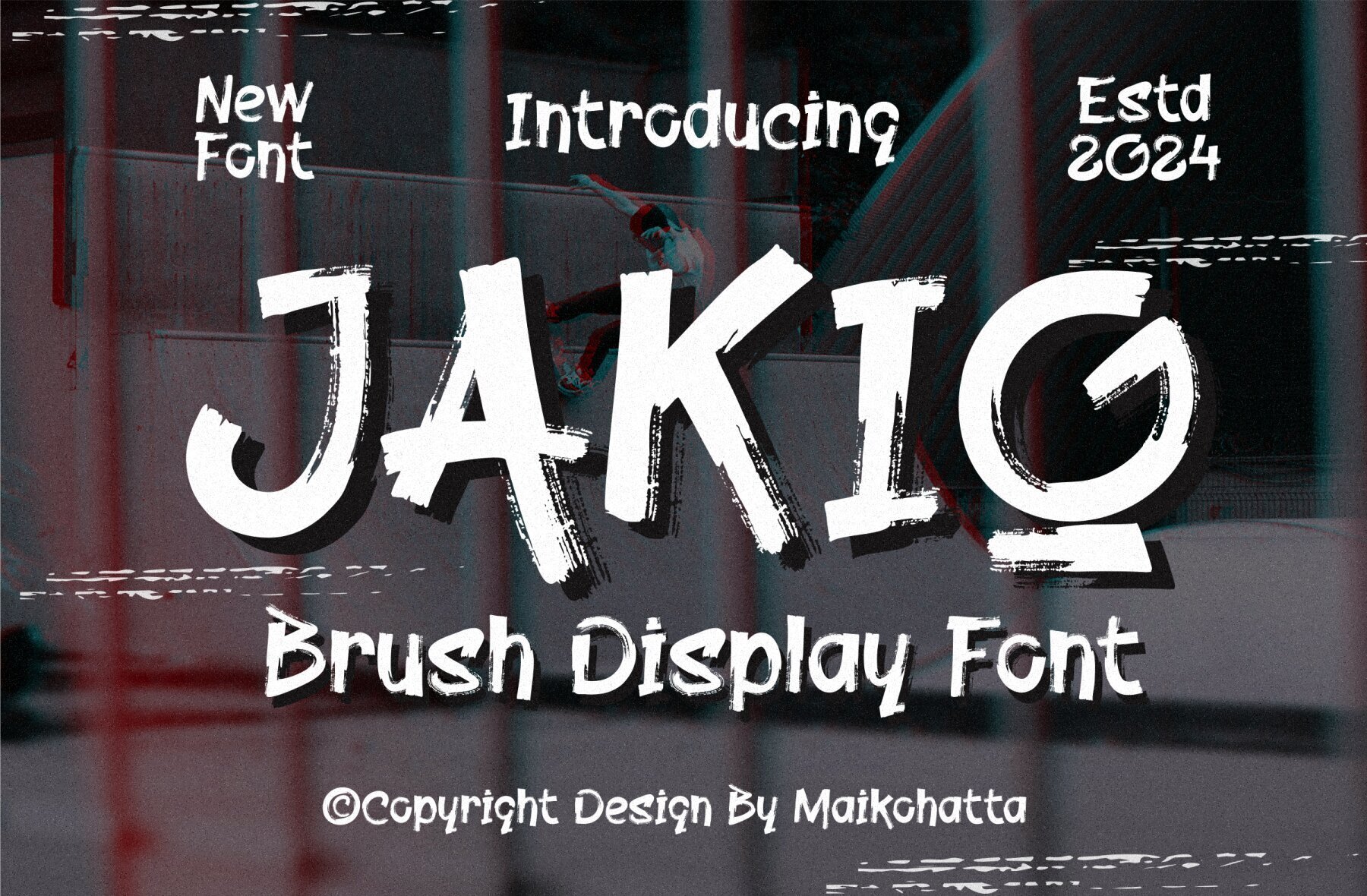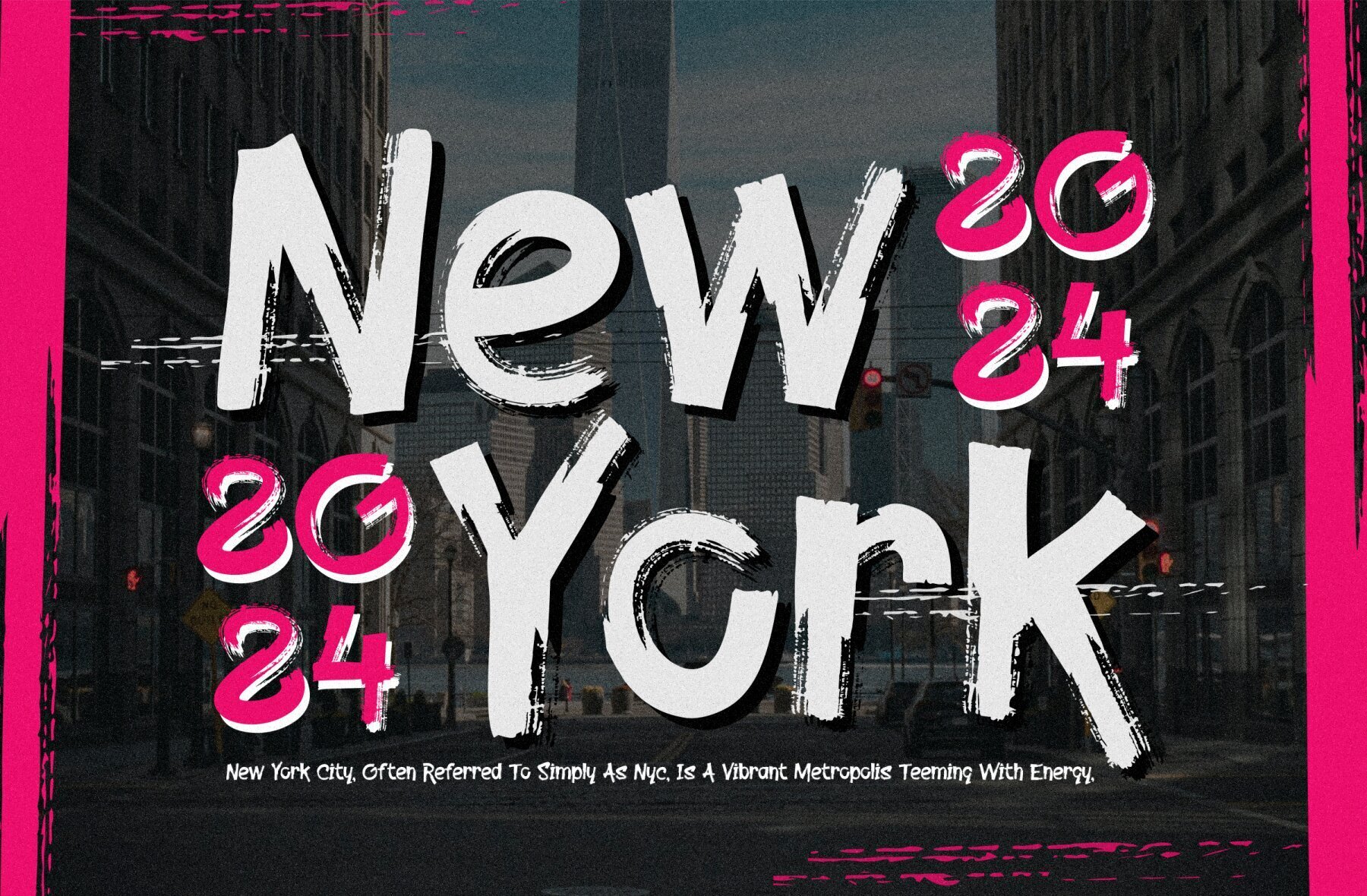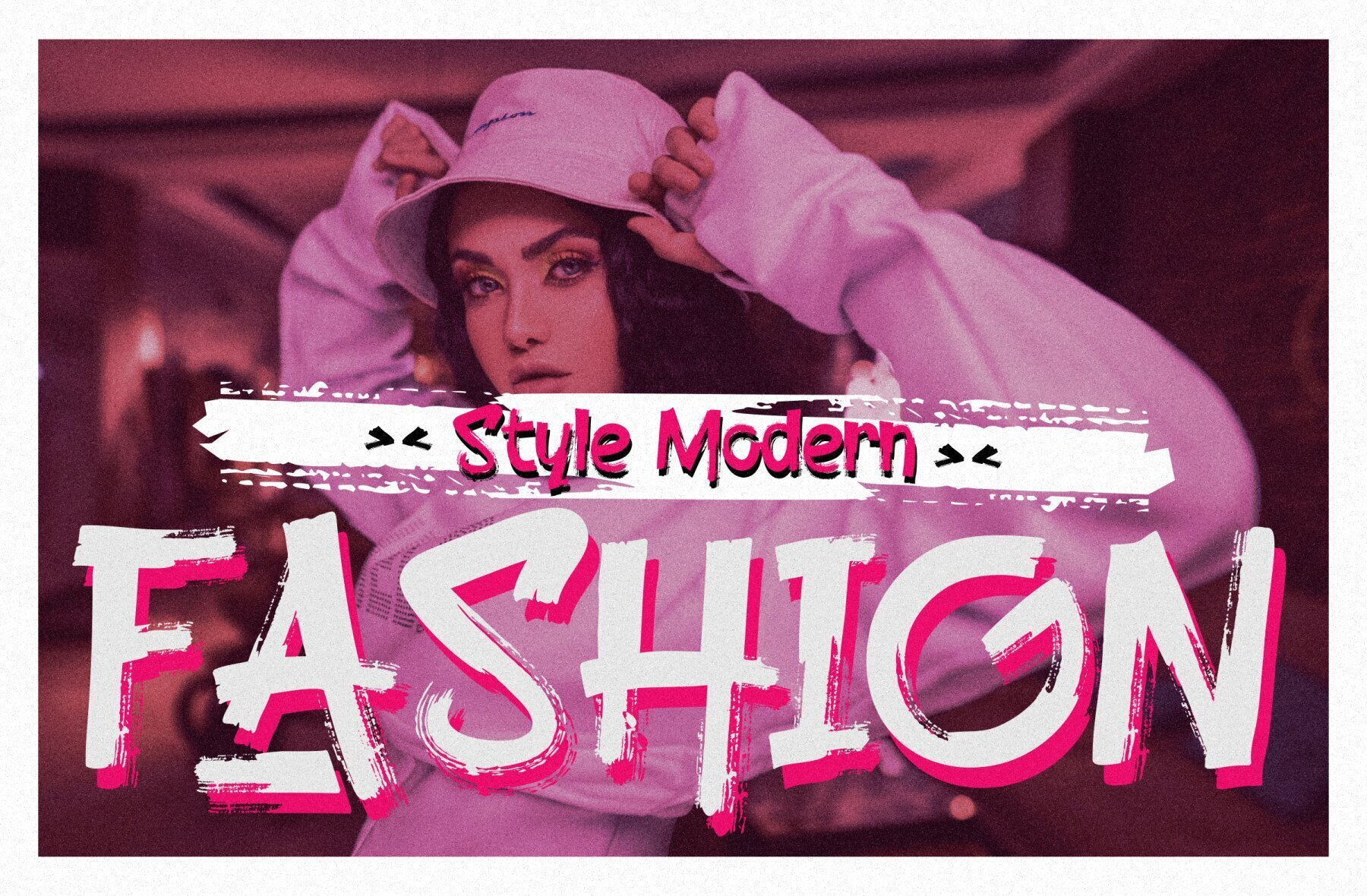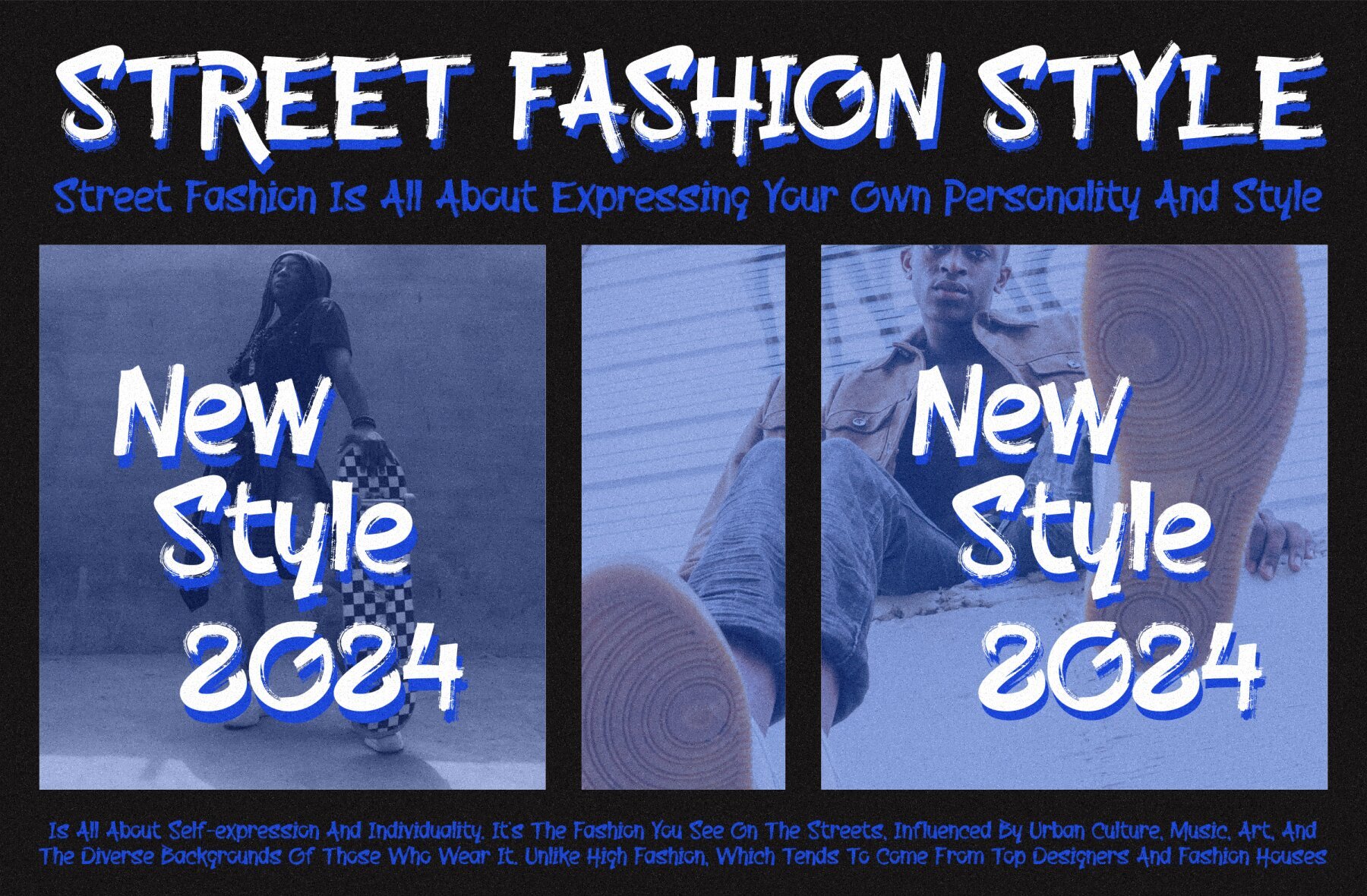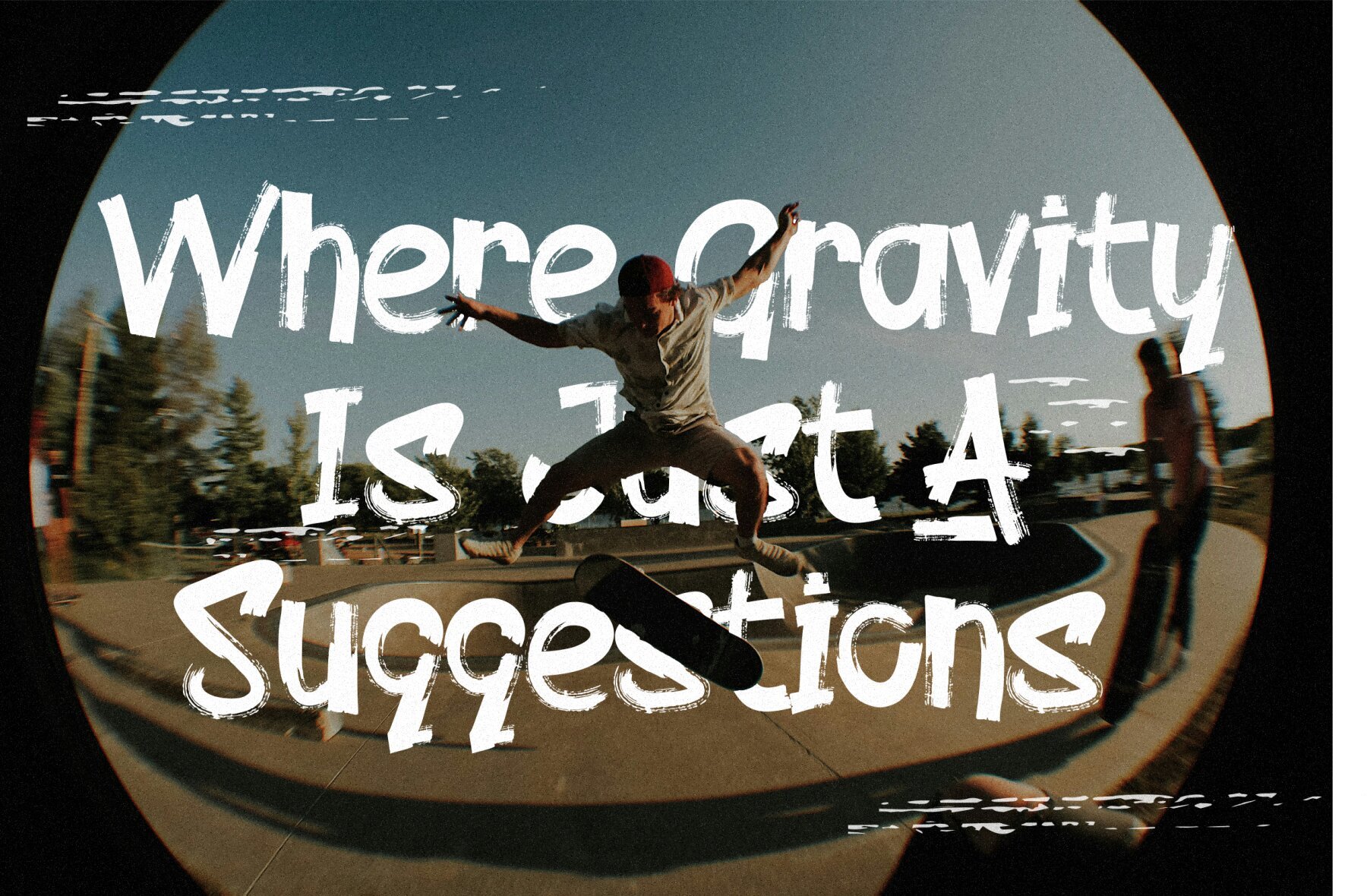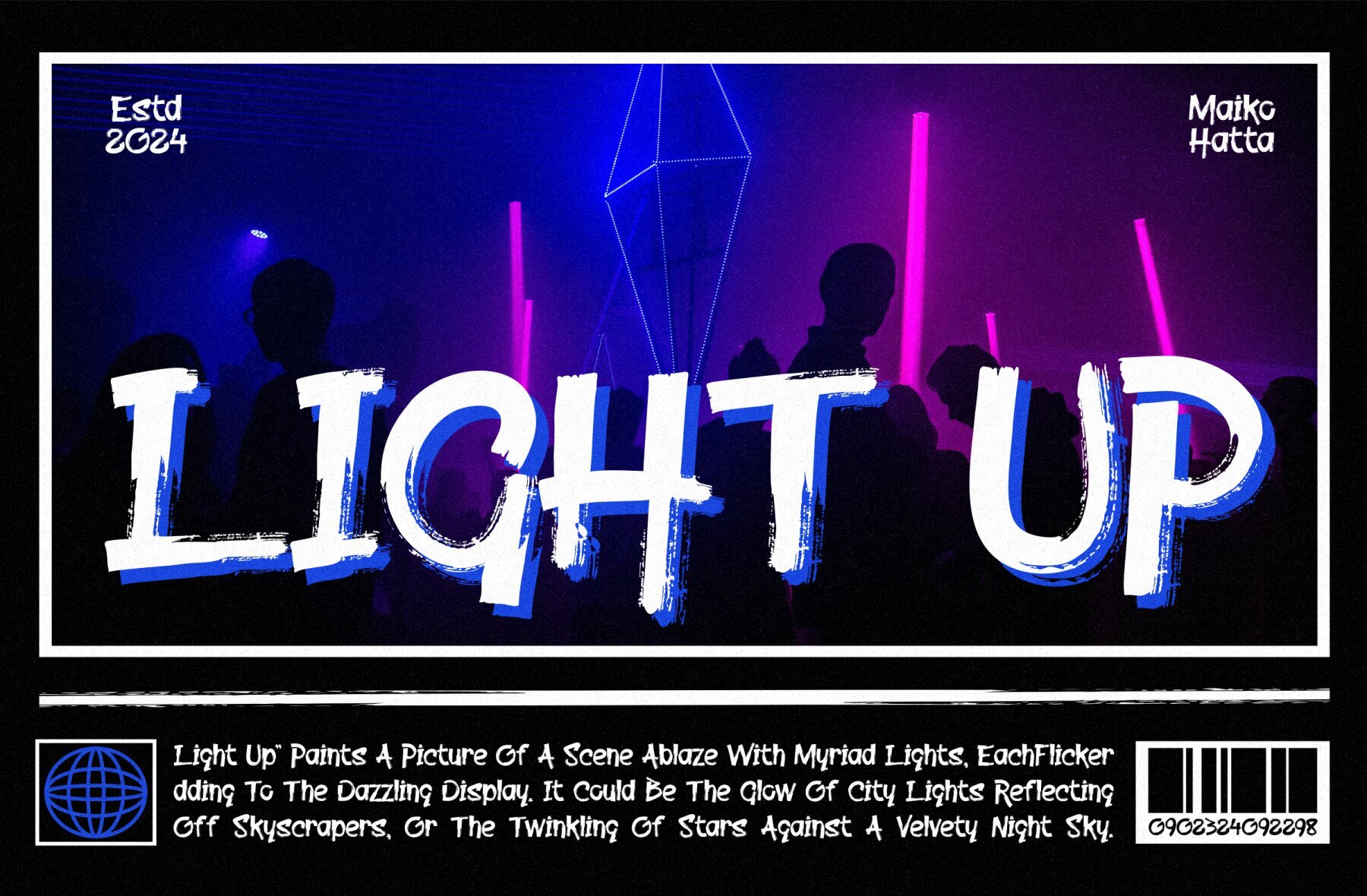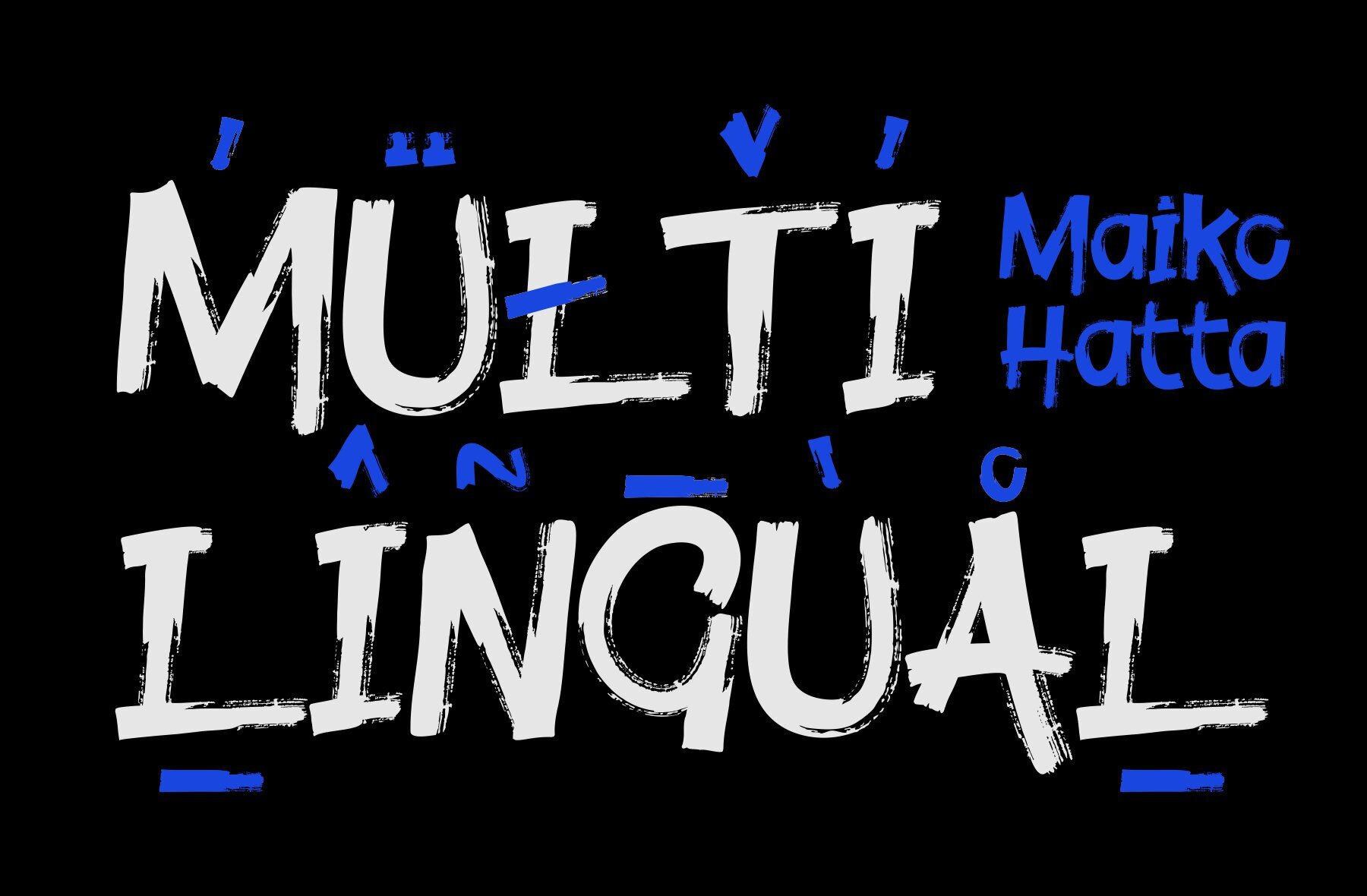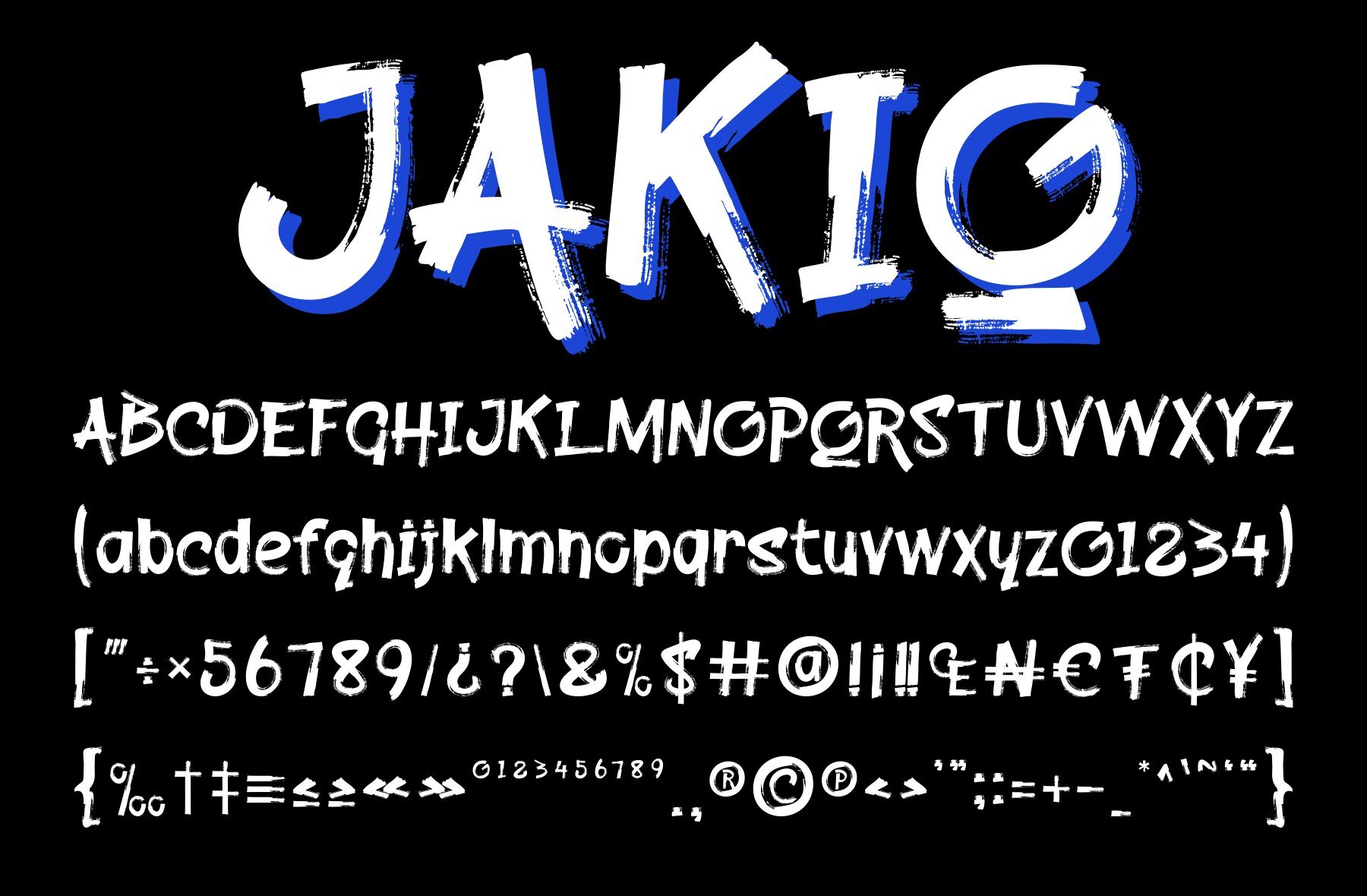
Jakio Font
Jakio Regular
Jakio combines boldness and readability with expressive brush strokes and contemporary design elements. Ideal for logo design, marketing materials, signage, and projects needing a modern, dynamic touch. Features include uppercase and lowercase letters, multilingual support, ligatures, and alternates for added versatility. Perfect for conveying dynamic and engaging messages.